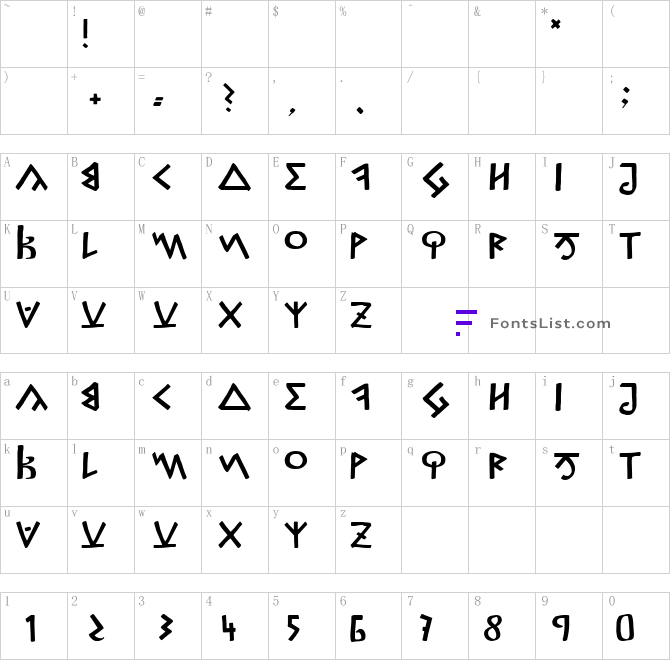
- Font Name:Capitalis Goreanis
Capitalis-Goreanis-Medium.ttf is a very beautiful artistic font, Capitalis-Goreanis-Medium.ttf is widely used in the design and printing of various books and pictures,Capitalis-Goreanis-Medium.ttf has a strong visual impact,Capitalis-Goreanis-Medium.ttf is a commonly used font in newspapers, magazines and books, and is used in posters, e-commerce Poster design, store design, logo design, font design and other fields.Capitalis-Goreanis-Medium.